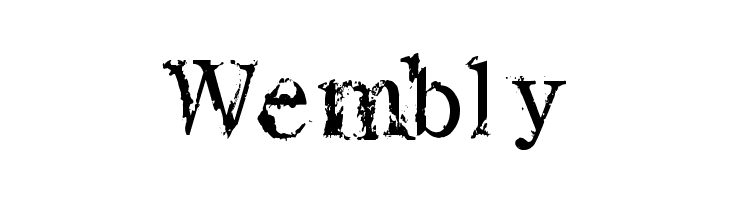
Sanity Wide Bold Font
- Font: Sanity Wide Bold
( Fonts by Cumberland Fontworks - http://www222.pair.com/sjohn/fonts.htm - S. John Ross )
A bold, distressed font with a grunge aesthetic.